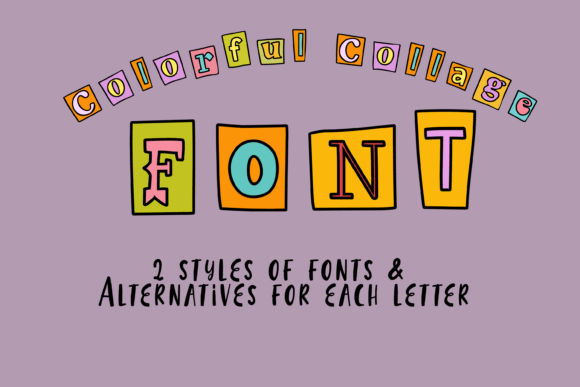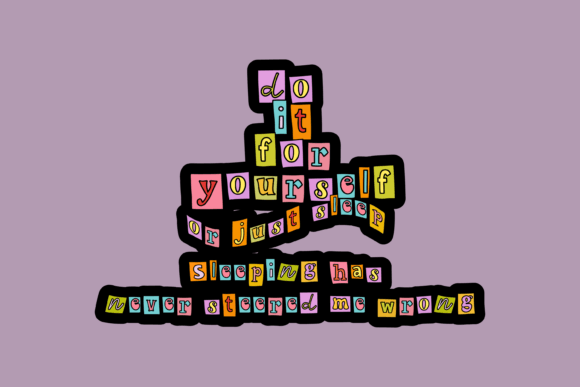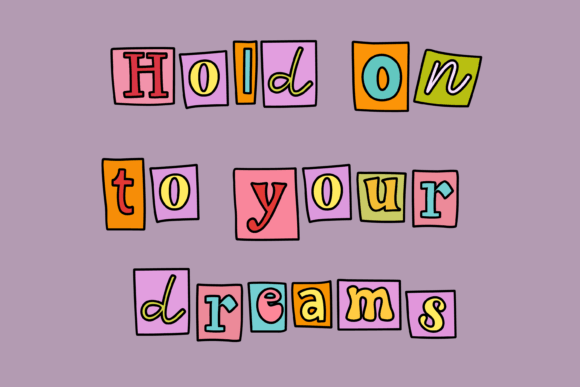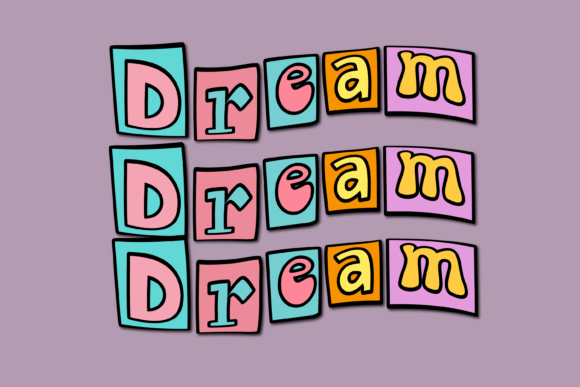
Colorful Collage Font
About the Colorful Collage Font
We are excited to introduce Colorful Collage Font, a must-have typeface for any serious designer. Unleash your creativity with our vibrant Colorful Collage Font! This unique font features two distinct styles, each bursting with color and personality, allowing you to add a playful and artistic touch to any project. Perfect for invitations, posters, social media graphics, and more, this font is designed to make your text stand out.
With a variety of alternate characters for each letter, you can mix and match to create an endless array of stunning typographic designs. Whether you’re looking for a fun and whimsical vibe or a bold statement, this font has you covered. Transform your words into a visual masterpiece and let your imagination run wild!